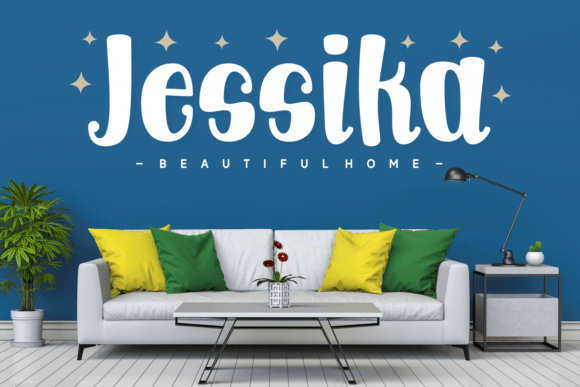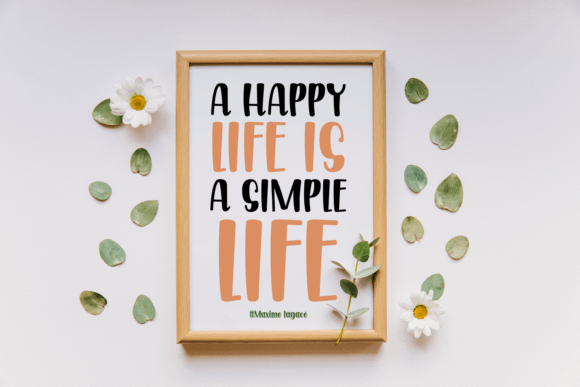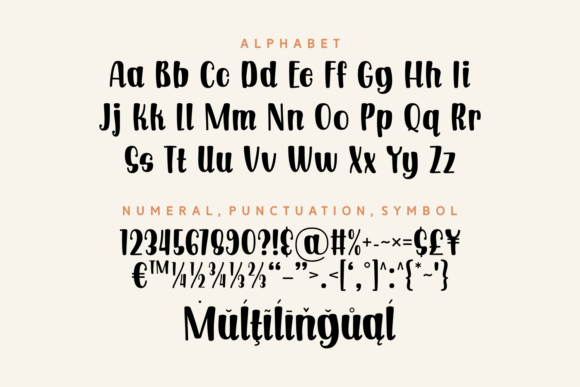
Introducing Brilliant Thought Font: Elevate Your Designs with Elegance
In the world of typography, a font can make or break a design. For designers and crafters seeking a unique and elegant touch, the Brilliant Thought Font is a game-changer. This beautifully handwritten font is not only visually stunning but also highly adaptable, making it perfect for a wide range of creative projects.
The Beauty of Brilliant Thought Font
Brilliant Thought Font boasts elegant characters and a lovely rhythm that will add a touch of sophistication to any design. Its unique handwritten style sets it apart from more traditional fonts, giving your creations a personal and distinctive feel. Whether you’re working on a logo, greeting card, quotation, or website graphics, this font is sure to impress.
Key Features of Brilliant Thought Font
• Unique Handwritten Style: Brilliant Thought Font features a beautifully unique handwritten style that will add a personal touch to your designs.
• Elegant Characters: The font’s elegant characters and lovely rhythm make it perfect for designs that require a touch of sophistication.
• Highly Adaptable: Brilliant Thought Font can be used for a wide range of purposes, including logos, greeting cards, quotations, and website graphics.
Brilliant Thought Font is a versatile font that can be used by designers and crafters for various projects. Its unique style and adaptability make it an excellent choice for:
• Logo Design: Create a memorable brand identity with a custom logo that showcases your business’s personality.
• Greeting Cards: Add a personal touch to your greeting cards and make them stand out from the crowd.
• Quotations: Use Brilliant Thought Font to create visually stunning quotations that inspire and motivate.
• Website Graphics: Elevate your website’s design with elegant and unique graphics that reflect your brand’s style.
• Use for Headings and Titles: The font’s elegant style makes it perfect for headings and titles, adding a touch of sophistication to your designs.
In conclusion, Brilliant Thought Font is a beautifully unique handwritten font that is sure to elevate your designs. Its elegant characters, lovely rhythm, and adaptability make it perfect for a wide range of creative projects. Whether you’re a designer or crafter, this font is a must-have in your collection. With its PUA encoding and ease of use, you can focus on creating stunning designs that showcase your creativity.